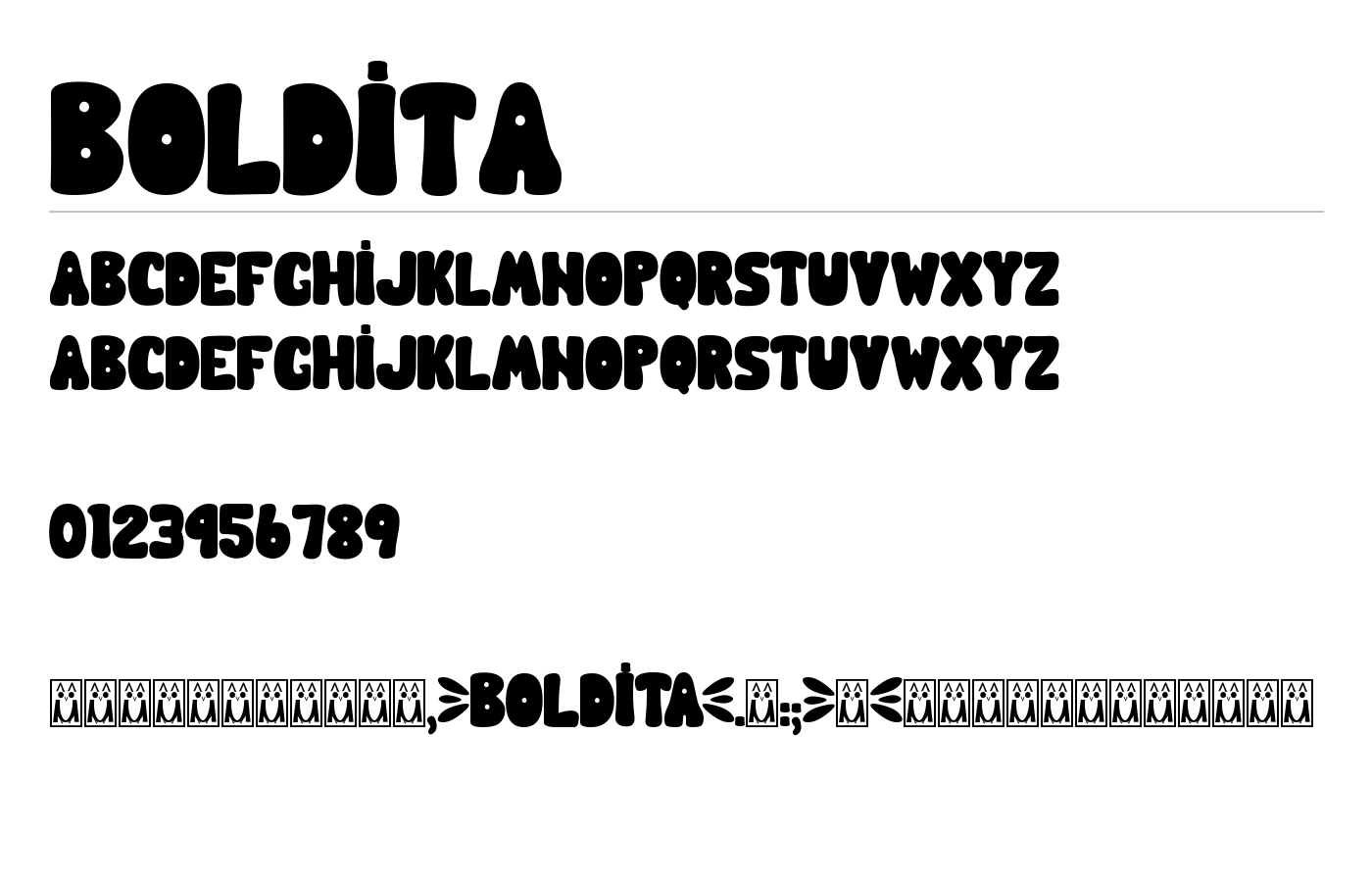
Boldita is a playful and chunky sans serif font characterized by its rounded, soft edges and bubbly letterforms. Its heavy weight and wide proportions give it a friendly, fun vibe, making it ideal for eye-catching headlines, children's designs, and casual branding. This font works best where a bold, informal style is needed to convey warmth and creativity.
| Font family | BOLDITA Font |
| Designer | Jaime Rangel Castro |